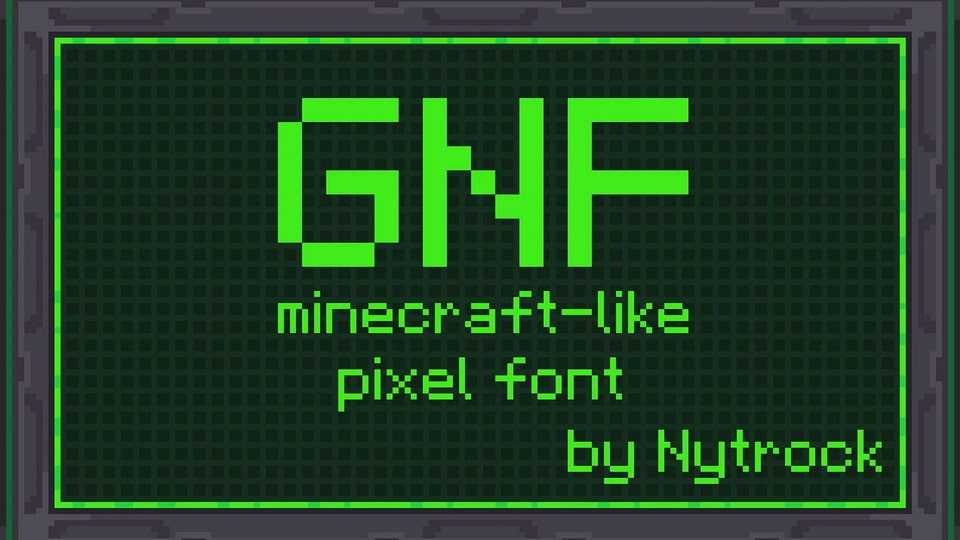
Download GNF (Global Nytrock Font) — minecraft-like font (it’s literally has same size), which was originally created for my games. GNF is perfectly optimized and pixel-perfect.